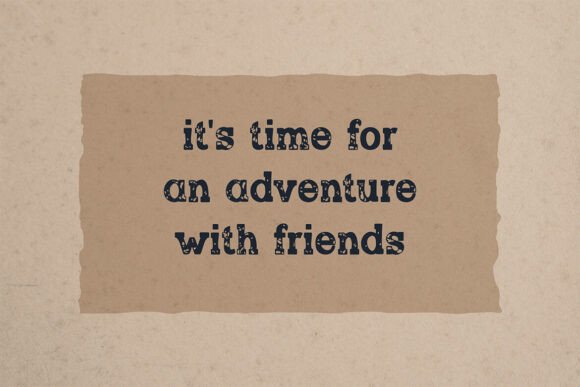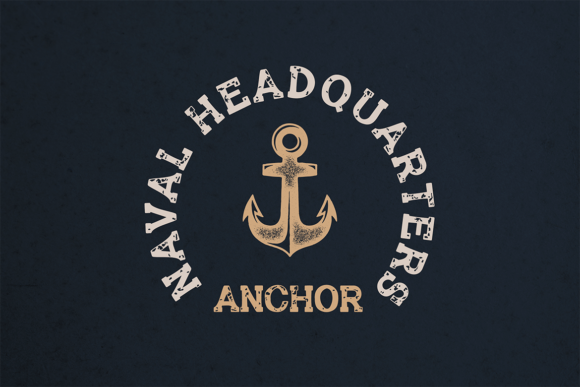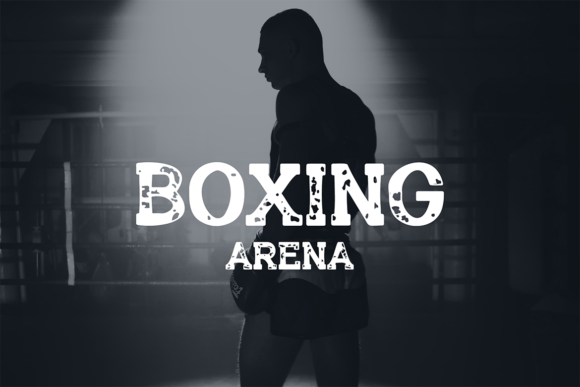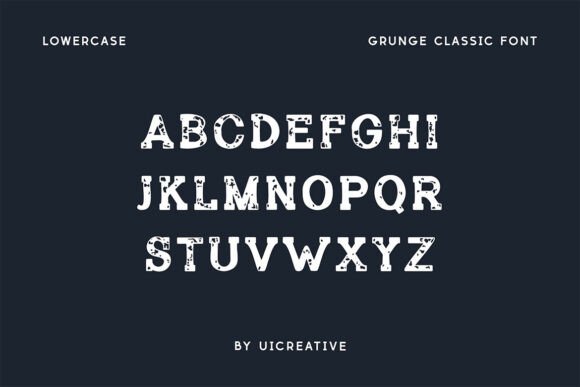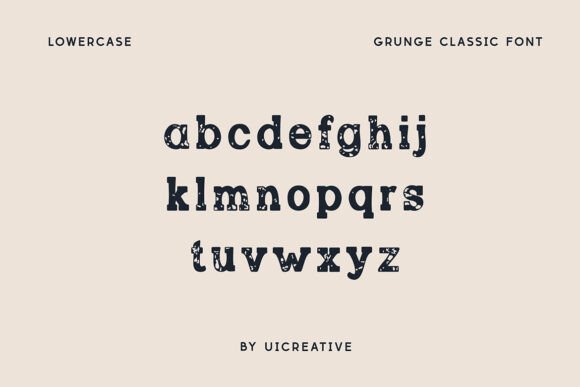
Introduction to Presidium Font
Have you ever found yourself stuck in front of a blank canvas, desperately searching for the perfect font to bring your creative project to life? For many designers, this is a familiar scenario, and it’s often the spark that ignites a journey of discovery and experimentation. In this article, we’ll delve into the world of Presidium Font, a modern display font that has been gaining popularity among designers for its elegant and stylish aesthetic.
Whether you’re working on a high-end branding project or a simple typography quote, Presidium Font is an excellent choice. Its versatility and high quality make it an ideal design resource for a wide range of applications, from fashion-related branding to editorial design.
Key Features of Presidium Font
- High-quality design: Presidium Font is a premium font designed for creative projects, offering a unique and sophisticated look.
- High-resolution design: Presidium Font is designed at a high resolution (300 DPI), making it suitable for use in print and digital applications.
- Unique characteristics: The font features a unique blend of modern and classic elements, making it a standout design resource for creative projects.
Honest Review: Presidium Font
I recently had the chance to work with the Presidium Font, and I must say it’s been a game-changer for my creative project. The high quality of the font is evident from the first glance, making it a great addition to any design resource.
What works well with Presidium Font is its versatility. It can be used for a wide range of design applications, from business cards to presentations. The transparent background allows for seamless integration with any image or color scheme, giving you complete control over the design.
Here are some of the key features that make Presidium Font stand out:
- High-resolution fonts for crisp and clear printing
- Customizable and scalable for any design project
While Presidium Font is a great resource, there are a few limitations to consider: ⚠️ The font family is relatively small, and the character set may not be suitable for complex texts.
Overall, I’m very impressed with Presidium Font. It’s a valuable addition to any design library, and its high quality and versatility make it a great choice for any creative project. ✨
Tips for Getting the Most Out of Presidium Font
For optimal results, use Presidium Font in conjunction with other high-quality design resources. Experiment with different font combinations and styles to find the perfect fit for your creative project. You can also use Presidium Font as a free download and incorporate it into your designs for a unique and professional look.
Presidium Font is ideal for a wide range of creative projects, including logos, business cards, and presentations. Its transparent background and high-quality design make it a versatile and useful design resource.